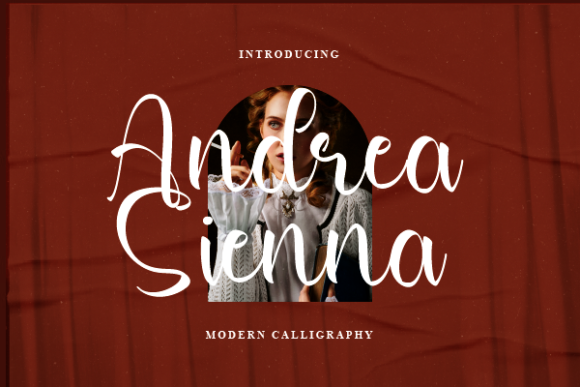
Introducing Andrea Sienna, the enchanting script font that will ignite your creativity and captivate your audience. Crafted by the renowned Circle Studio, Andrea Sienna exudes both delicacy and fashion, making it an ideal choice for a wide range of branding projects.
Indulge in its graceful curves and elegant flourishes that will transform your logos, t-shirt designs, and creative endeavors into captivating masterpieces. The versatility of Andrea Sienna knows no bounds; it will seamlessly elevate any context with its timeless charm.
Picture your Instagram feed adorned with breathtaking decals featuring quotes that resonate with your soul, or your t-shirts boasting eye-catching slogans that turn heads. With Andrea Sienna, the possibilities are endless.
Embrace the beauty of Andrea Sienna and let your imagination soar. Its intricate details and flowing script will add a touch of sophistication and allure to all your creative pursuits. Join the countless designers and artists who have fallen in love with Andrea Sienna and experience the transformative power of a truly exceptional font.